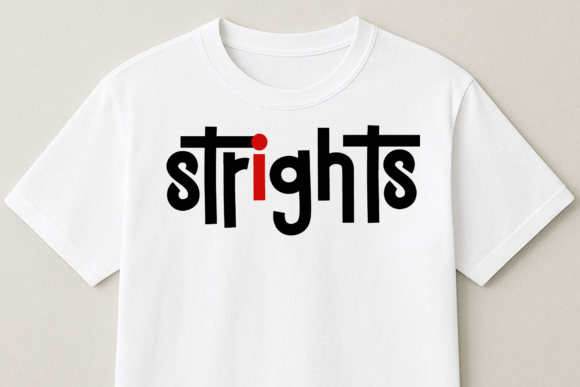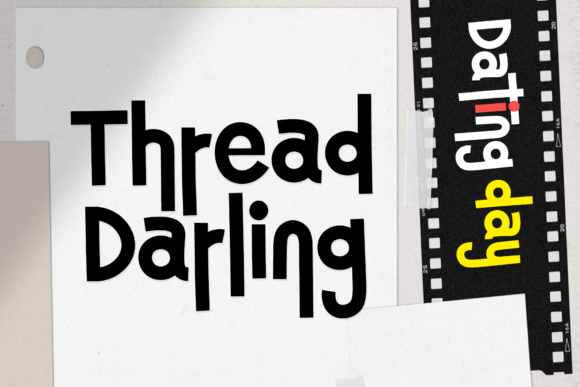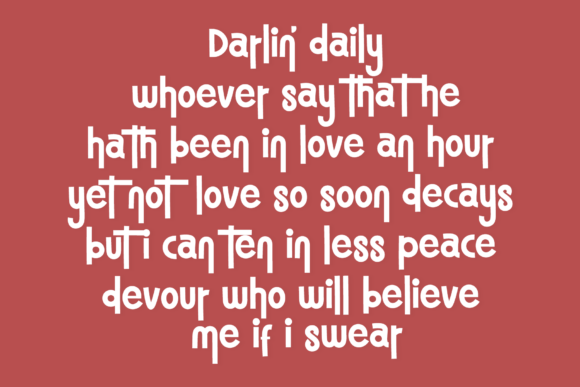
Introduction to Monday Friendships Font
Monday Friendships is a lovely and timeless handwritten font.
Key Features of Monday Friendships Font
Why Choose Monday Friendships Font?
Monday Friendships Font offers exceptional quality and versatility, making it a valuable addition to your design toolkit. Whether you’re creating for personal projects or commercial use, Monday Friendships Font delivers professional results.